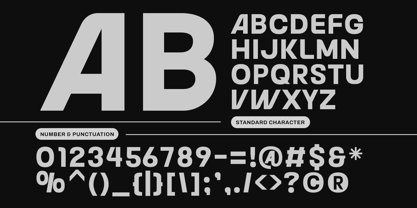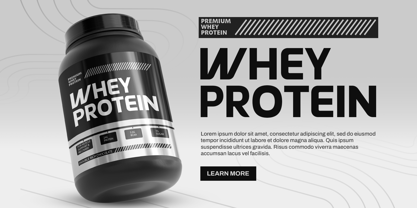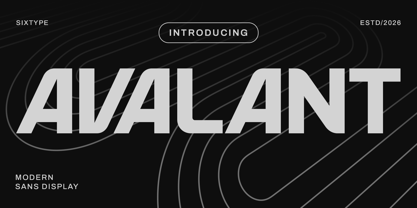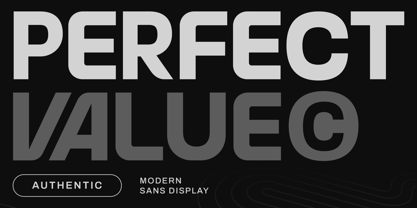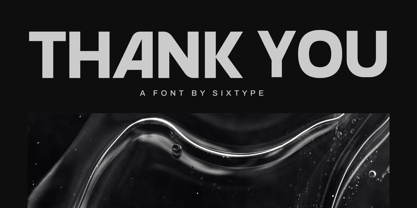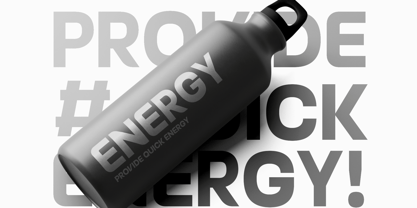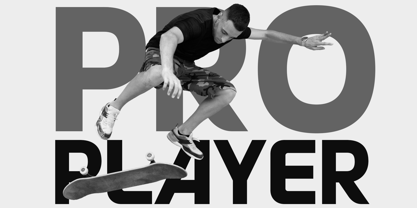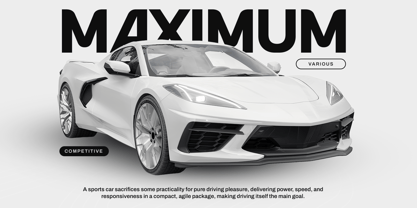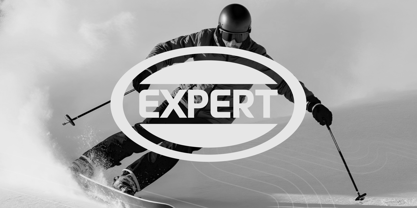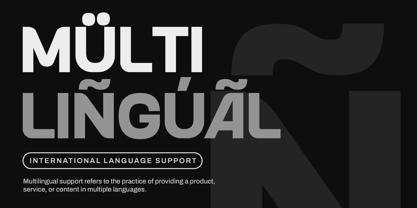
Avalant
Avalant is a modern sans display font characterized by its clean geometry, robust structure, and confident presence. With bold strokes and balanced proportions, Avalant offers a sleek, contemporary appearance that is both professional and expressive. The letterforms are sharp, clear, and highly legible, making this font perfect for impactful headlines and modern visual systems. Avalant excels at larger sizes, where its minimalist design and strong rhythm create a striking typographic statement. Emphasizing clarity and modern aesthetics, Avalant is ideal for designs aiming to convey strength, refinement, and a forward-thinking approach.